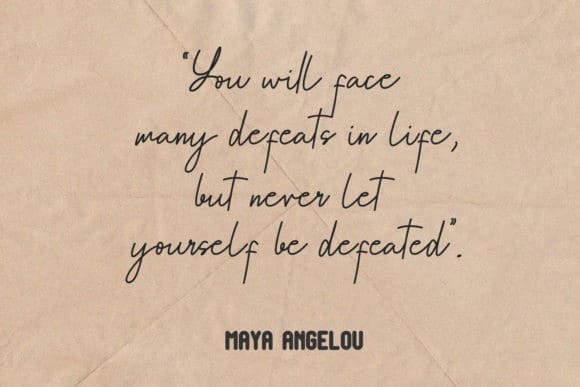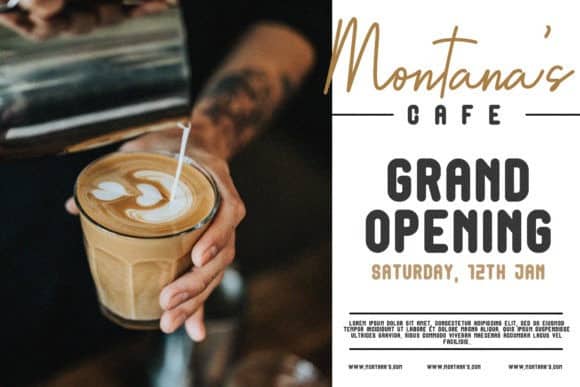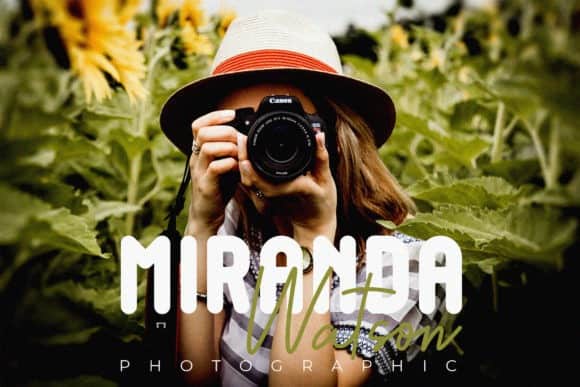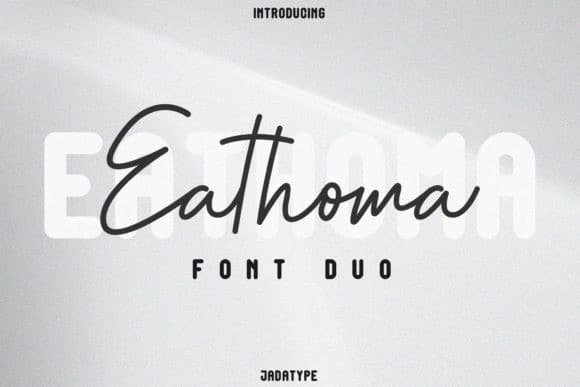
Eathoma Handwritten Font Duo
Eathoma Handwritten Font is handwriting signature typeface, every single glyph create by handmade. Raguel includes full set of charming uppercase and lowercase international letters, numerals, and giving realistic hand-lettered style. Made from font designer named jadatype. This typeface is a sweet and delicate duo font (sans serif and handwritten). Dainty and joyful, this font will be ideal for writing wedding invitations, cards or any other design that may need a romantic, personalized touch!